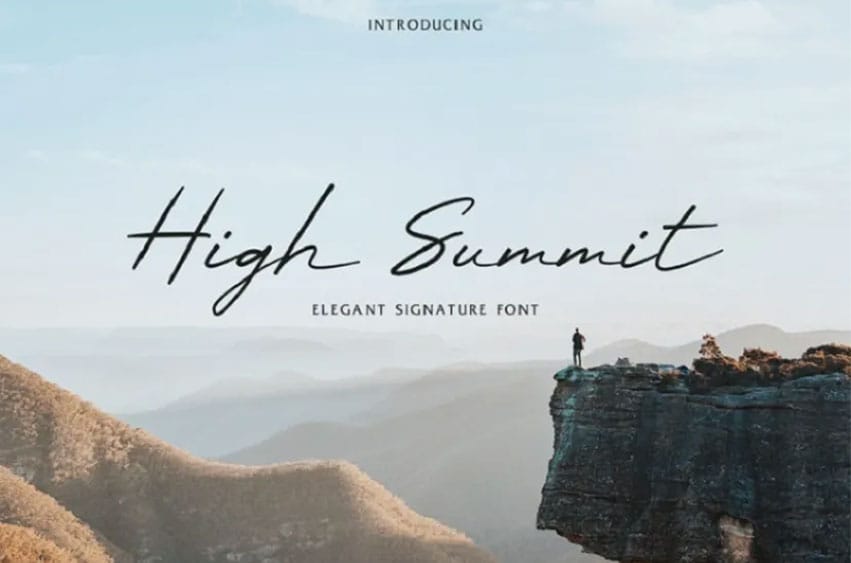
High Summit Signature Font
High Summit Signature Font is a sophisticated trademark font. It has unique characteristics.
It is suitable for your photography project namesake, labels or quotes, among others.